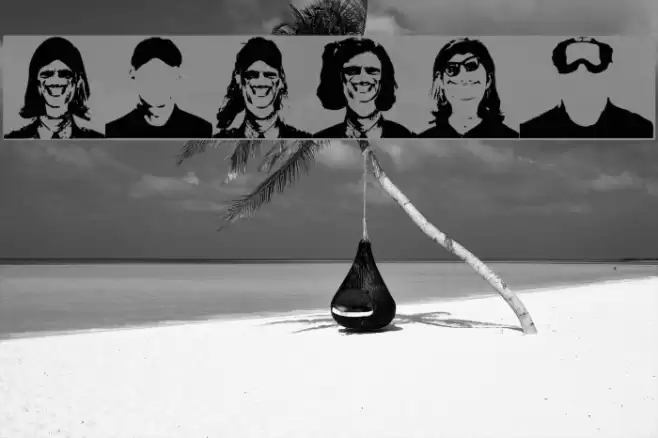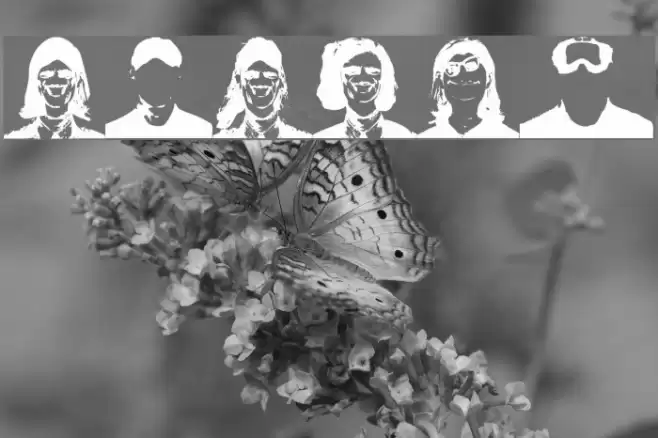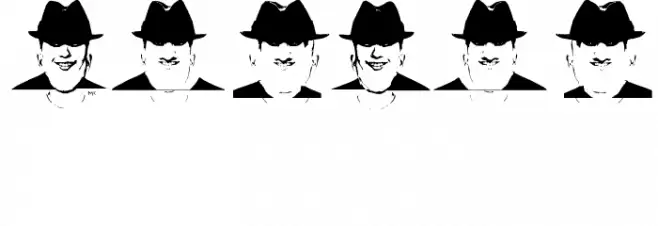
Wanted Font
Wanted Description
A highly stylized, decorative typeface where each character is represented by a black-and-white silhouette of a person or face, with unique features for each letter and symbol. The glyphs are bold, high-contrast, and have a playful, illustrative quality, making them more suitable for display purposes than for body text.
Decorative font using illustrated human silhouettes for each character from Uncategorized fonts.
- Proposed Projects: Posters, album covers, themed event invitations, novelty branding, art projects.
- Overall Style: Decorative, Playful, Illustrative
- Use Case: Headlines, Logos, Posters, Artistic projects